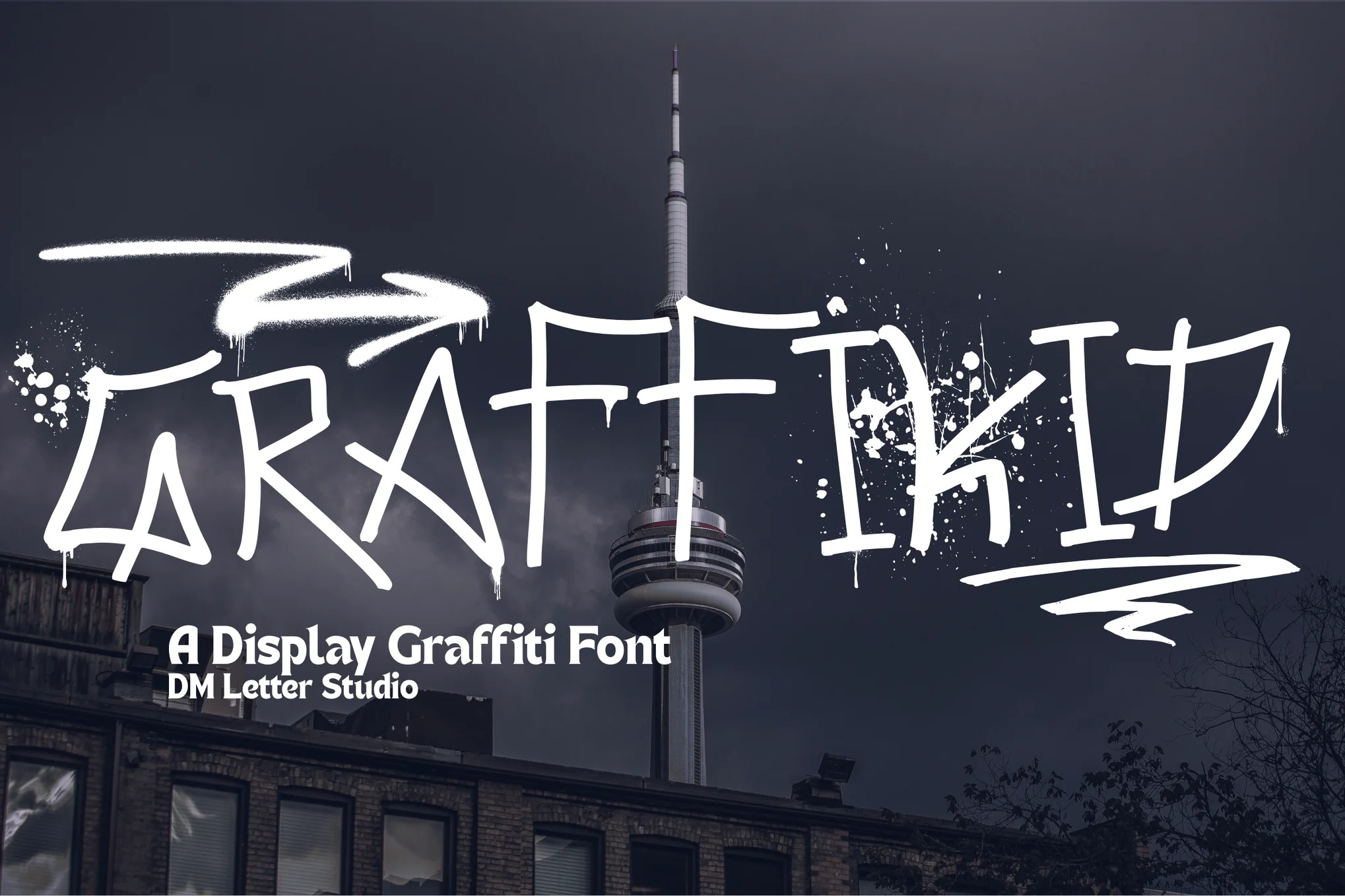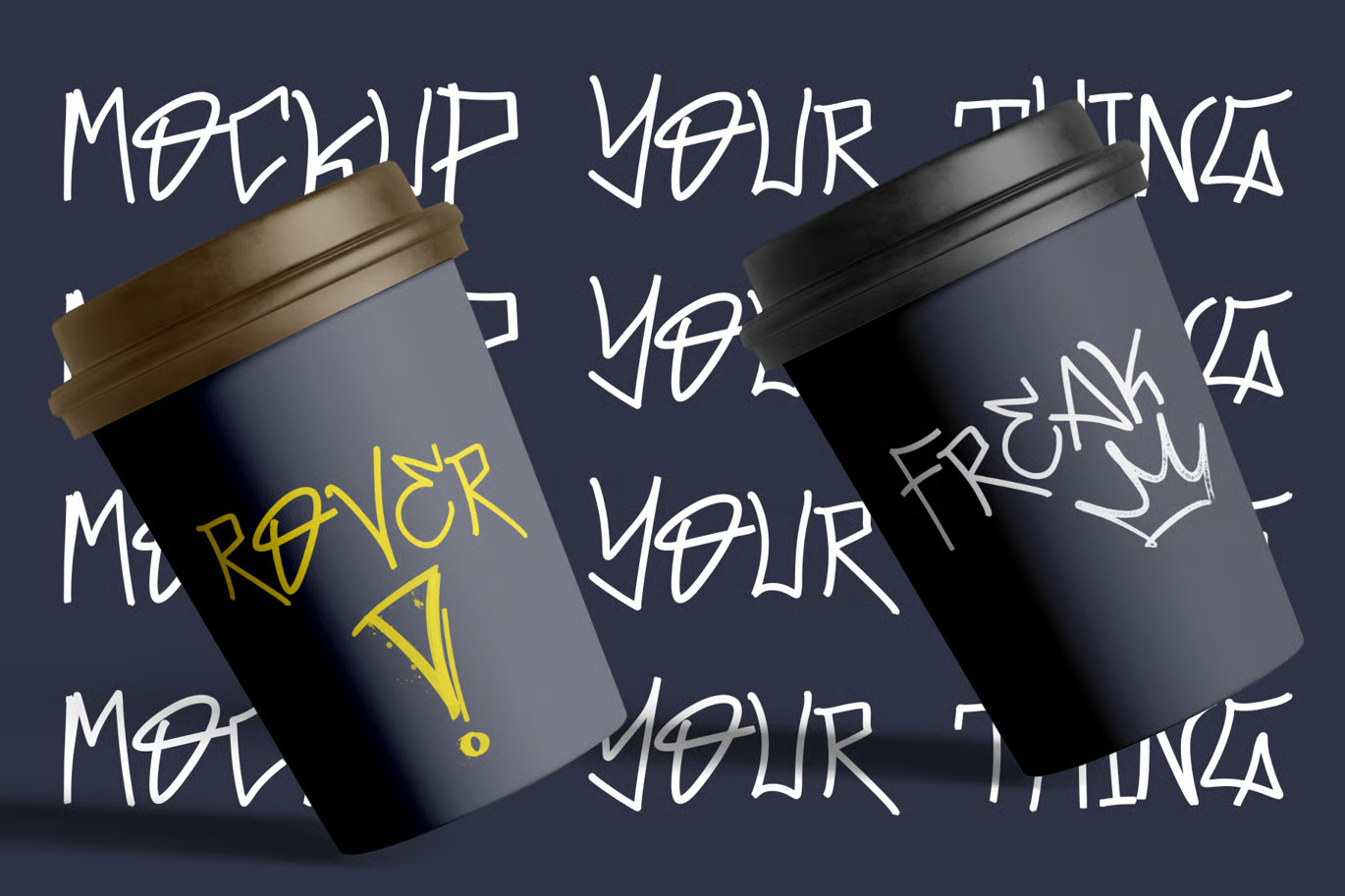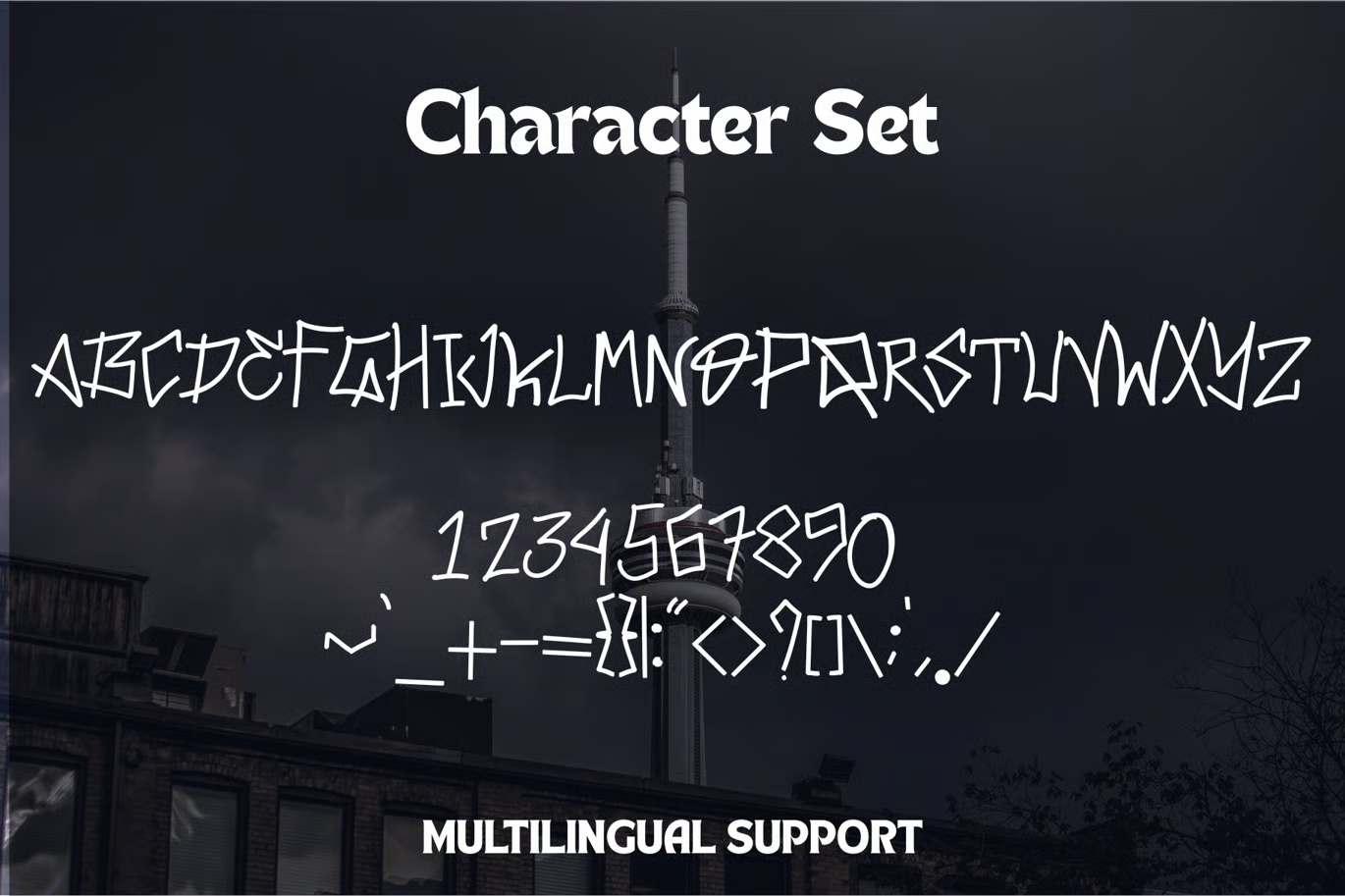
Graffikid is a bold display graffiti font that fuses raw street culture with clean, contemporary design—perfect for creators who want to make an impact. It channels modern urban energy while maintaining a refined structure, making it ideal for luxury logos, edgy food branding, streetwear labels, and standout urban signage.
Every letter bursts with attitude, featuring authentic spray-paint textures, artistic drips, and splatter details that reflect true graffiti aesthetics. Despite its rebellious style, Graffikid holds onto a sleek, modern layout, making it highly versatile—from premium logo design to bold packaging and eye-catching editorial visuals.